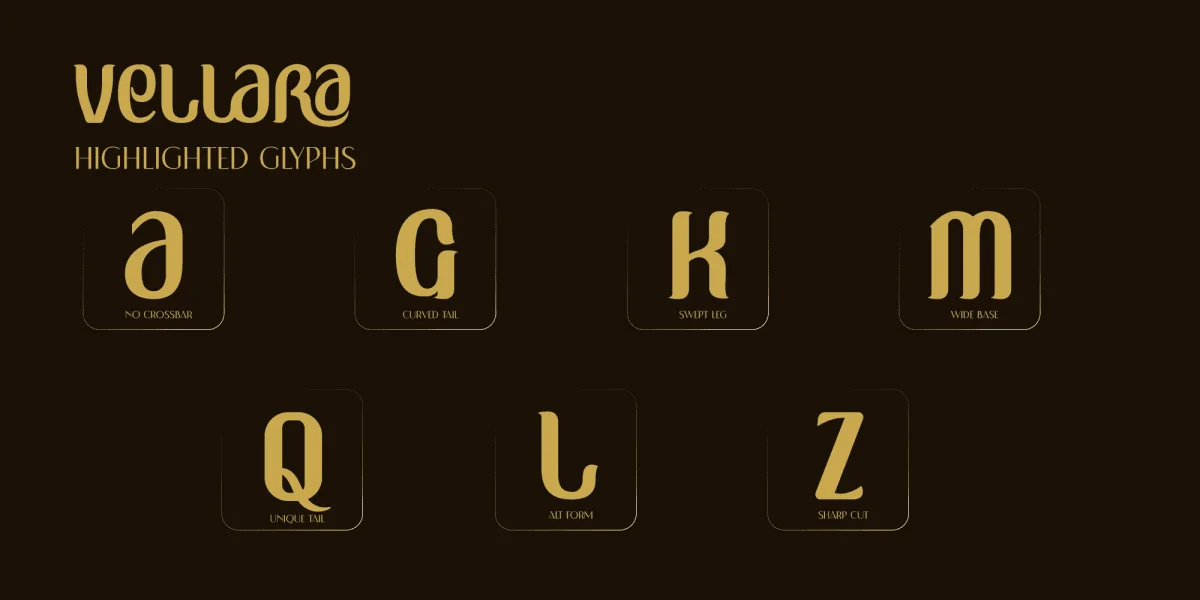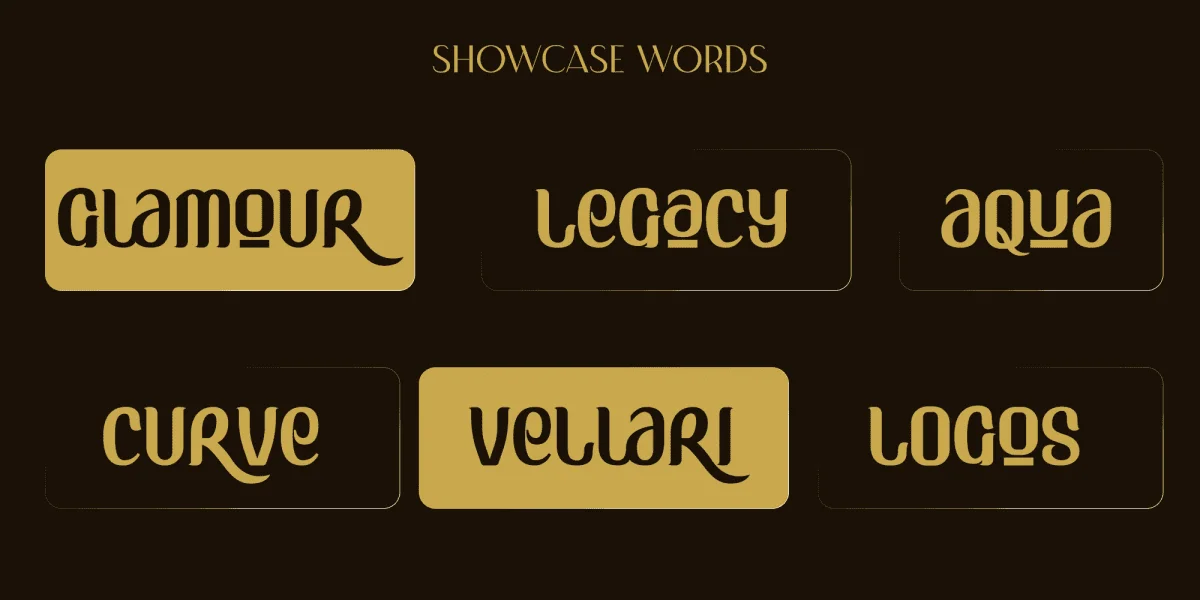
Vellara is a stylized display typeface that blends Art Deco geometry with fluid, organic curves. It features a medium-to-high contrast structure where thick, grounding vertical stems meet sweeping, expressive terminals and loops. The letterforms are characterized by their unique, unconventional anatomy, featuring looping, enclosed bowls, and elongated, hook-like descenders. This interplay of rigid verticality and circular flourishes creates a rhythmic, decorative texture that is both modern and nostalgic.
With its high-end, luxury aesthetic, Vellara is ideally suited for display applications that require a strong visual identity. It excels in editorial mastheads, boutique branding, cosmetic packaging, and logo design where its distinctive character shapes can take center stage. The typeface brings an air of sophistication and artistic flair to headlines, event invitations, and upscale signage, making it a powerful tool for designers looking to convey elegance and creative individuality.